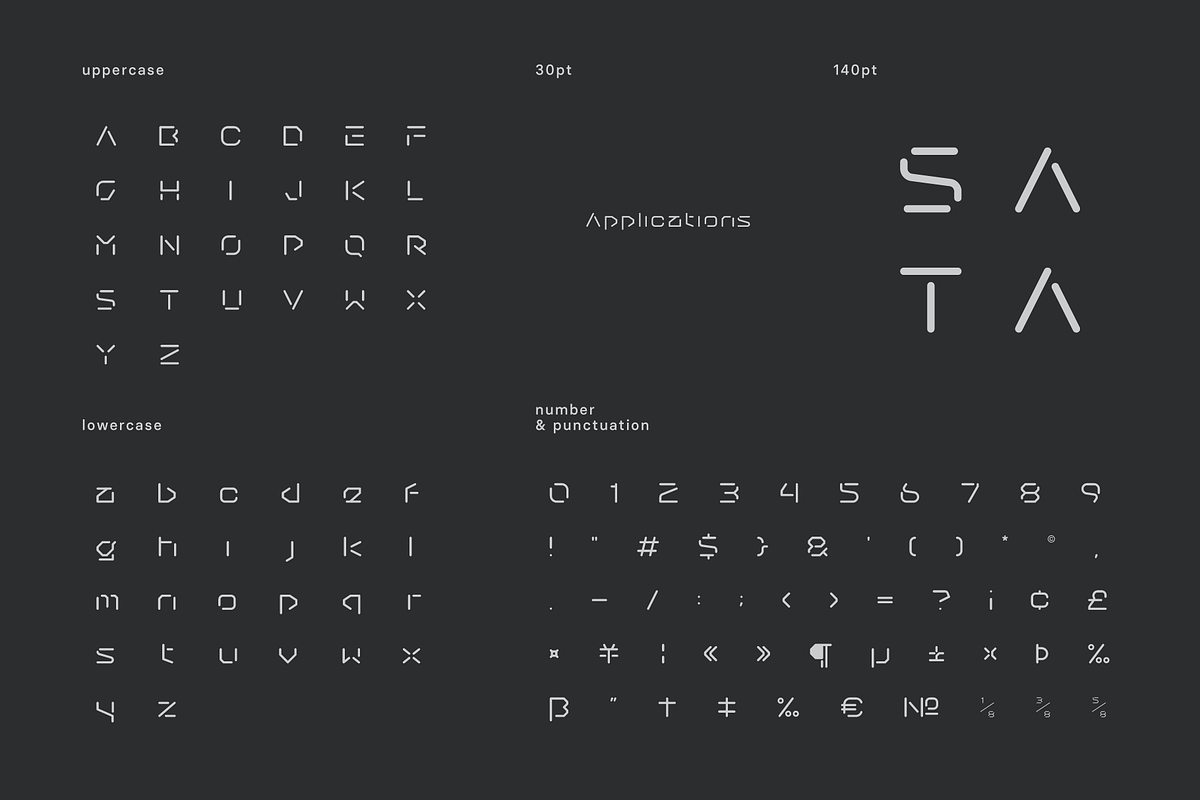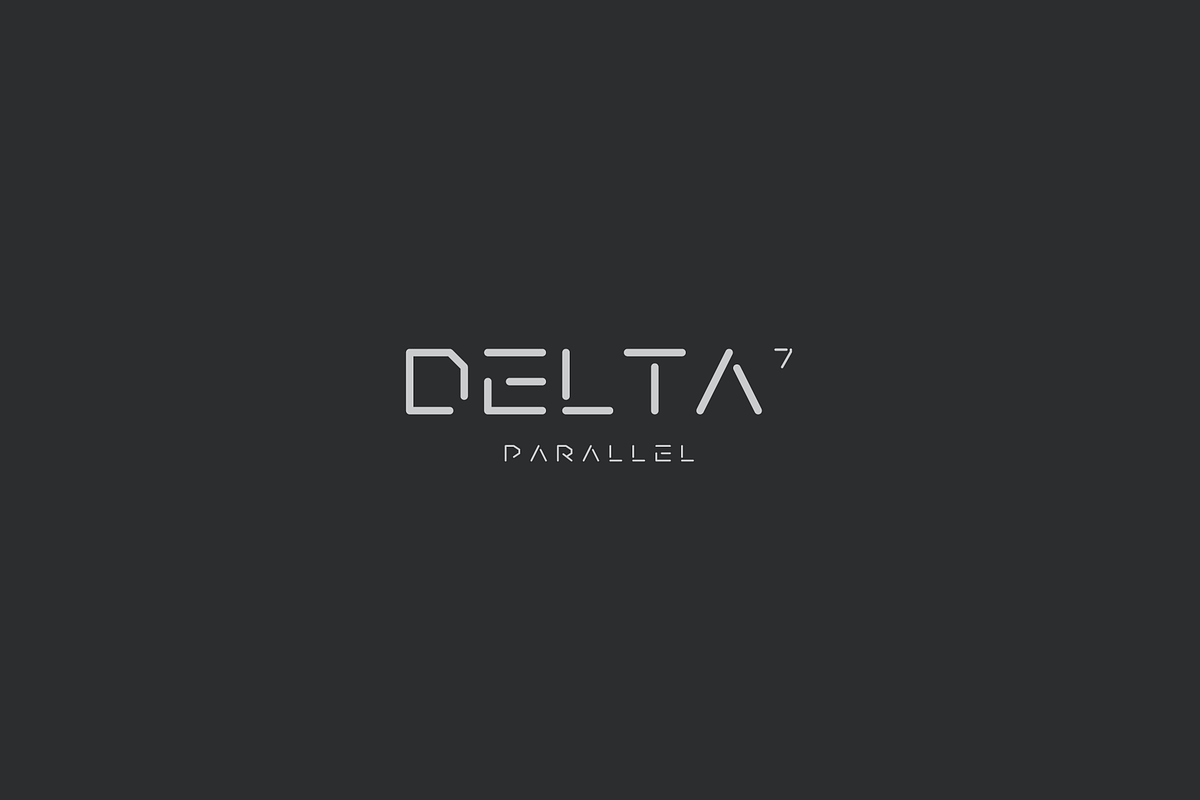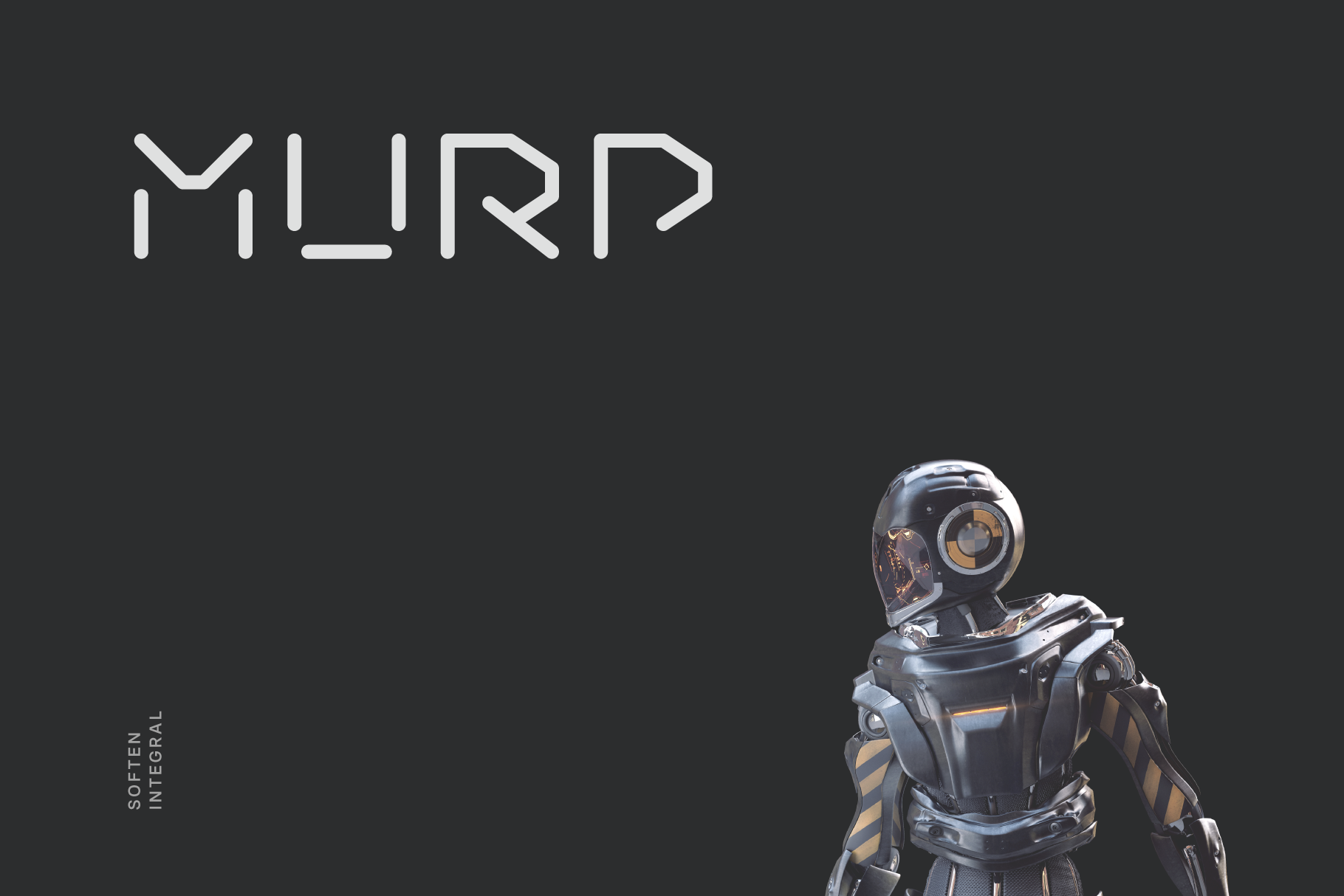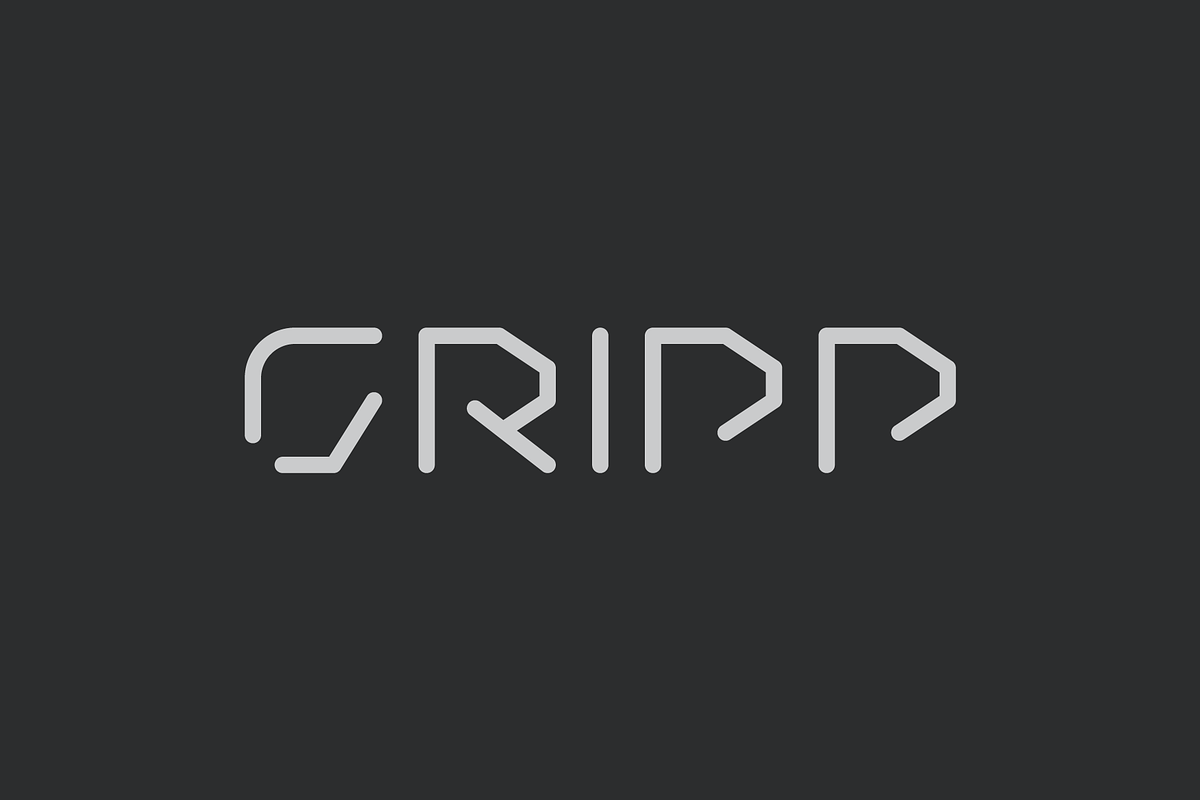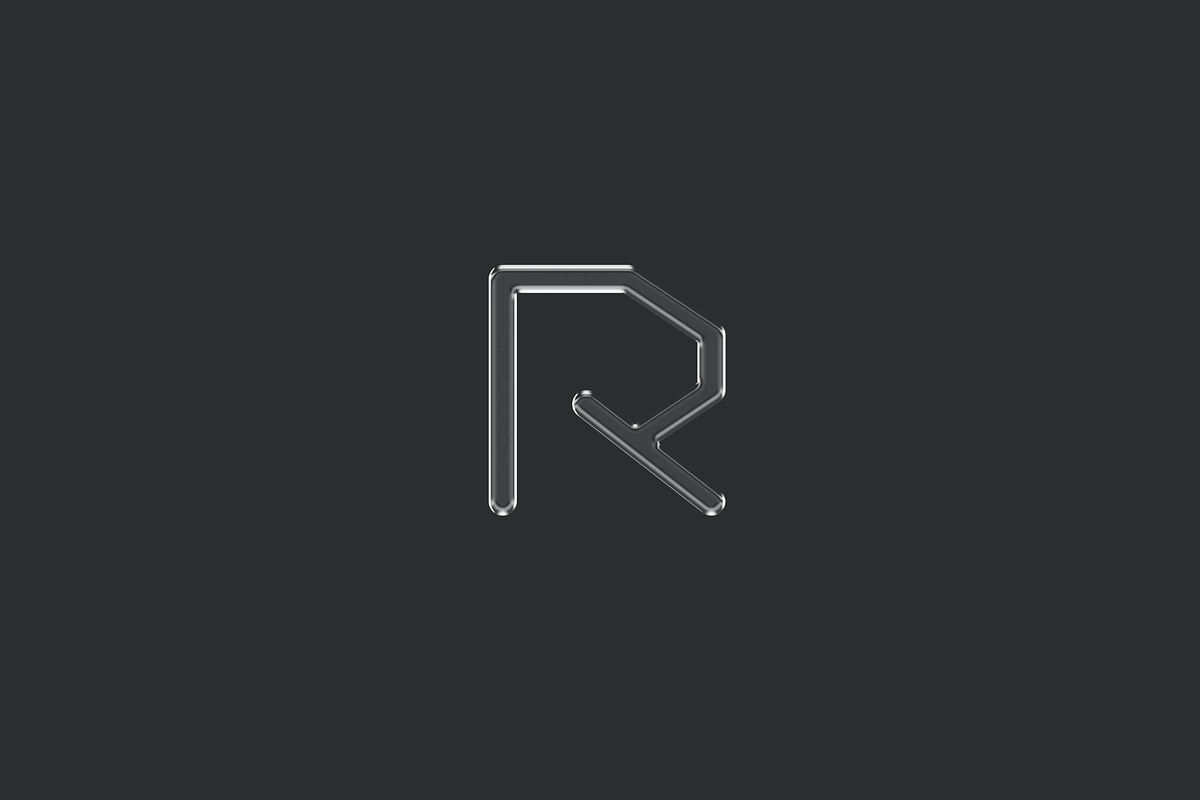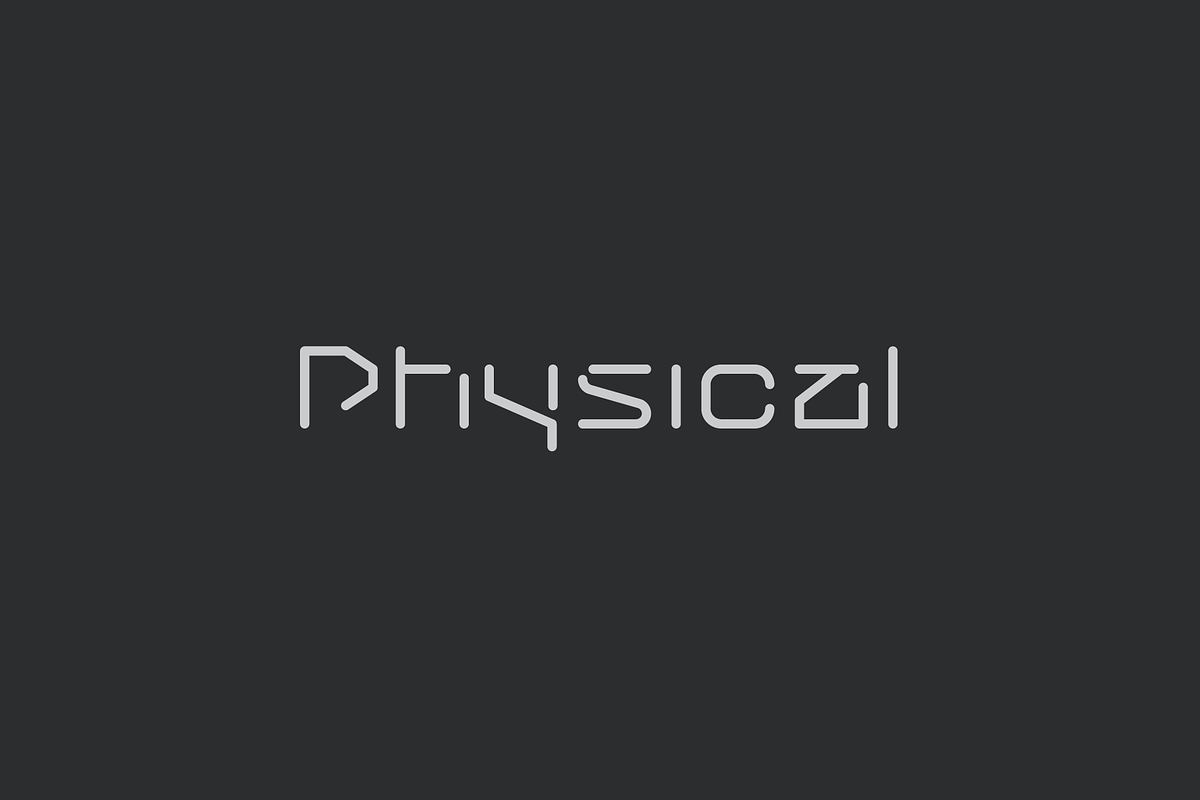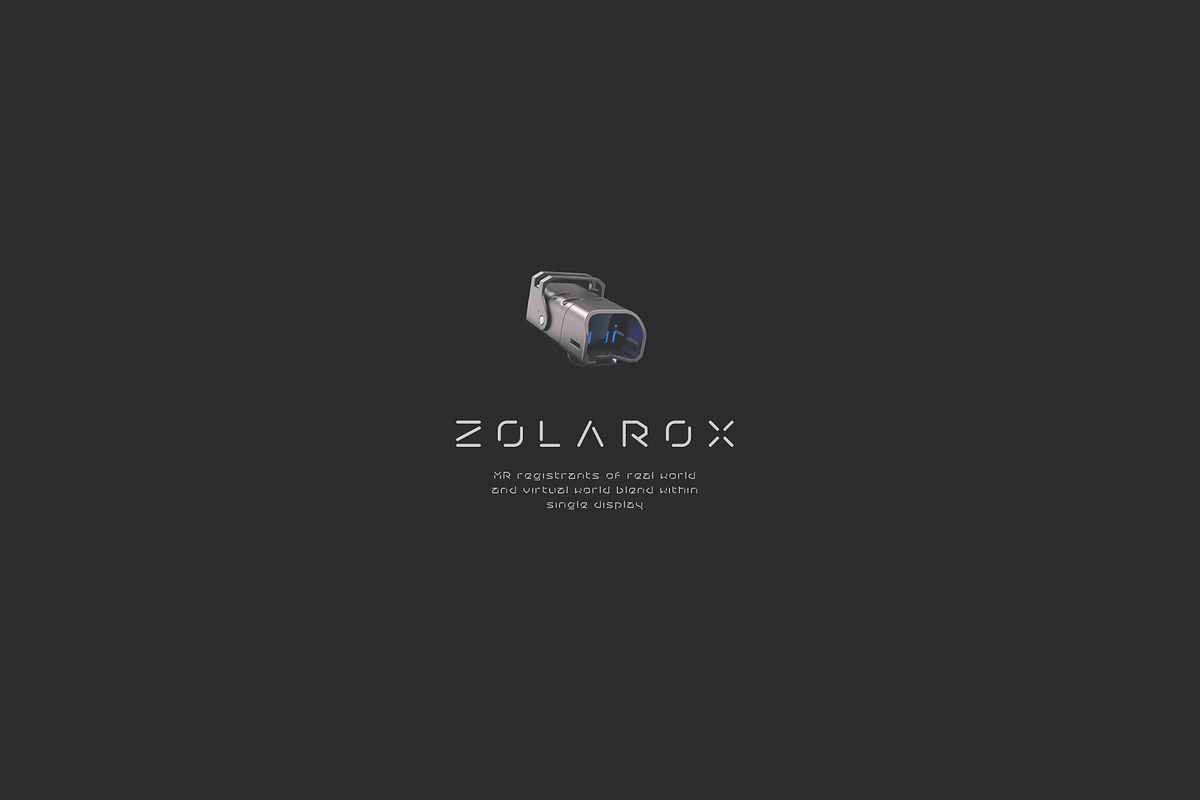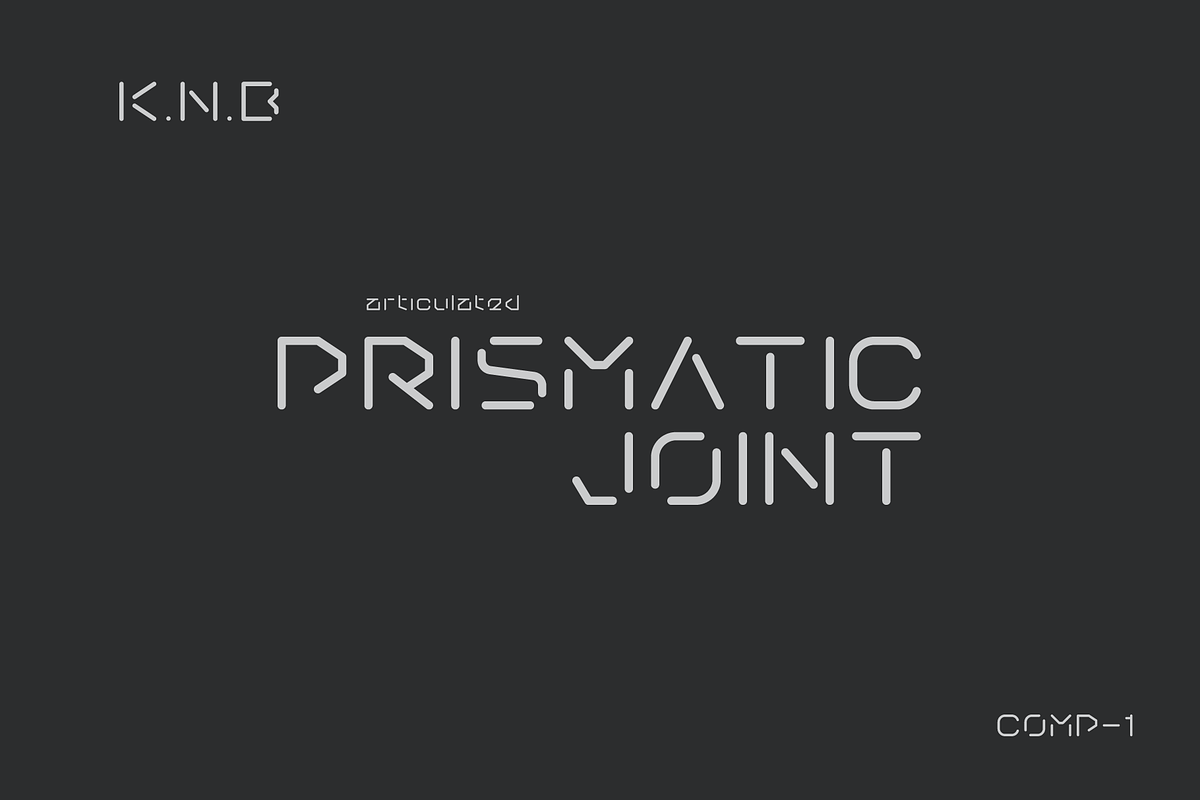
Murp Futuristic Cyber Font
Murp is a soften integral restraint tech sans apt for headline, editorial, branding, packaging, printed materials and typographic applications. 150+ glyphs with ligatures and fractions provided in opentype .otf and .woff format.